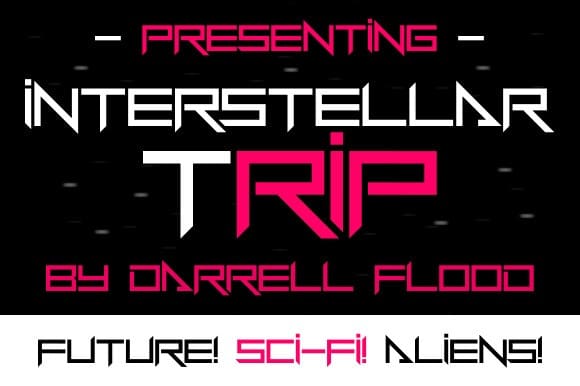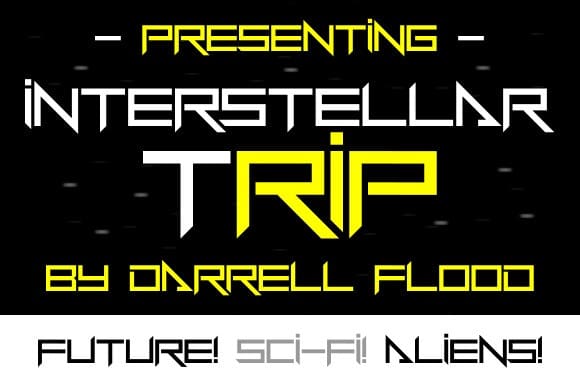
Interstellar Trip Font
Interstellar Trip Font a futuristic sci-fi font in a sharp, slick, angular style. Perfect for alien encounters, robot invasions and general high tech use!